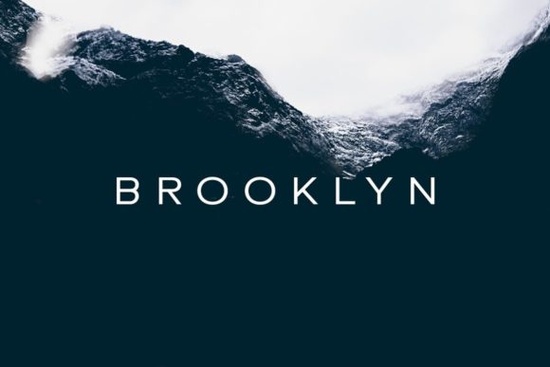
When it comes to adding a touch of minimalism and neatness to your projects, the Brooklyn Font is a great choice. This sans serif font is versatile and can be used in a wide range of creative ideas, from branding and logos to print-on-demand designs and more.
Why Choose Brooklyn Font for Your Creative Projects?
Brooklyn Font stands out with its clean and straightforward design, making it an excellent fit for both digital and print applications. Whether you're a designer, crafter, or small business owner, this font can help your projects look polished and professional without overwhelming the viewer.
How Can You Use Brooklyn Font in Different Projects?
Brooklyn Font is incredibly versatile, and you can use it in various ways. Here are some ideas:
- Branding and Logos: The simplicity of Brooklyn Font makes it perfect for creating memorable and clean logos. It’s easy to read and can convey a sense of modernity and professionalism.
- Print-on-Demand Designs: For those in the print-on-demand business, this font works well on t-shirts, mugs, and other merchandise. Its legibility ensures that your message is clear and impactful.
- Web Design and Digital Media: Brooklyn Font is also suitable for web design, where it can be used for headings, subheadings, and body text. Its minimalist style fits well with contemporary web aesthetics.
- Invitations and Greeting Cards: If you’re designing invitations or greeting cards, Brooklyn Font adds a touch of elegance and simplicity, making your designs stand out.
What Makes Brooklyn Font Stand Out Among Other Sans Serif Fonts?
While there are many sans serif fonts available, Brooklyn Font has a unique charm. Its balanced proportions and subtle details make it both functional and aesthetically pleasing. Additionally, it complements a wide range of other fonts, such as Modern DIY Rhinestone TTF Template Font, Fluffernutter Font, and Maple Doughnuts Family Font. These combinations can create a dynamic and visually appealing design.
How to Pair Brooklyn Font with Other Fonts?
Pairing fonts can be a fun and creative process. Here are some tips for combining Brooklyn Font with other fonts:
- Choose Complementary Styles: Look for fonts that complement the minimal and neat style of Brooklyn Font. For example, a script font like Mochacino Font can add a touch of elegance and contrast.
- Balance Weights and Sizes: Ensure that the weights and sizes of the fonts you pair are balanced. A heavier font can be used for headings, while Brooklyn Font can be used for body text.
- Test and Adjust: Always test your font combinations to see how they look together. Make adjustments as needed to ensure readability and visual harmony.
Where Can You Find More Sans Serif Fonts Like Brooklyn Font?
Practical Tips for Using Brooklyn Font Effectively
To get the most out of Brooklyn Font, here are some practical tips:
- Keep It Simple: Let the simplicity of Brooklyn Font shine by using it in a straightforward and uncluttered way. Avoid overcomplicating your designs.
- Use Contrast Wisely: Pair Brooklyn Font with contrasting elements, such as bold colors or different textures, to make your designs pop.
- Experiment with Layouts: Try different layouts and arrangements to see what works best. Sometimes, a simple change in layout can make a big difference in the overall look and feel of your design.